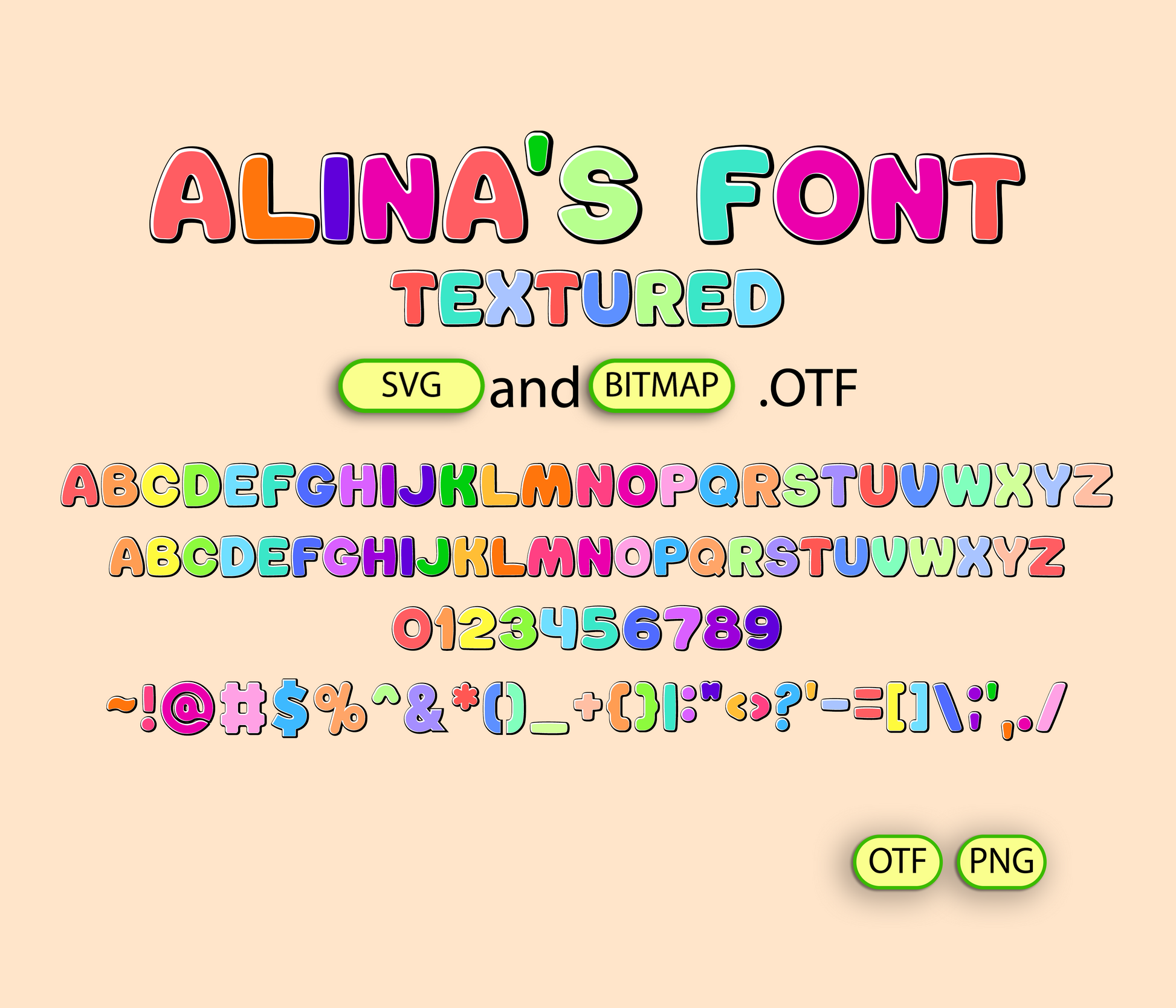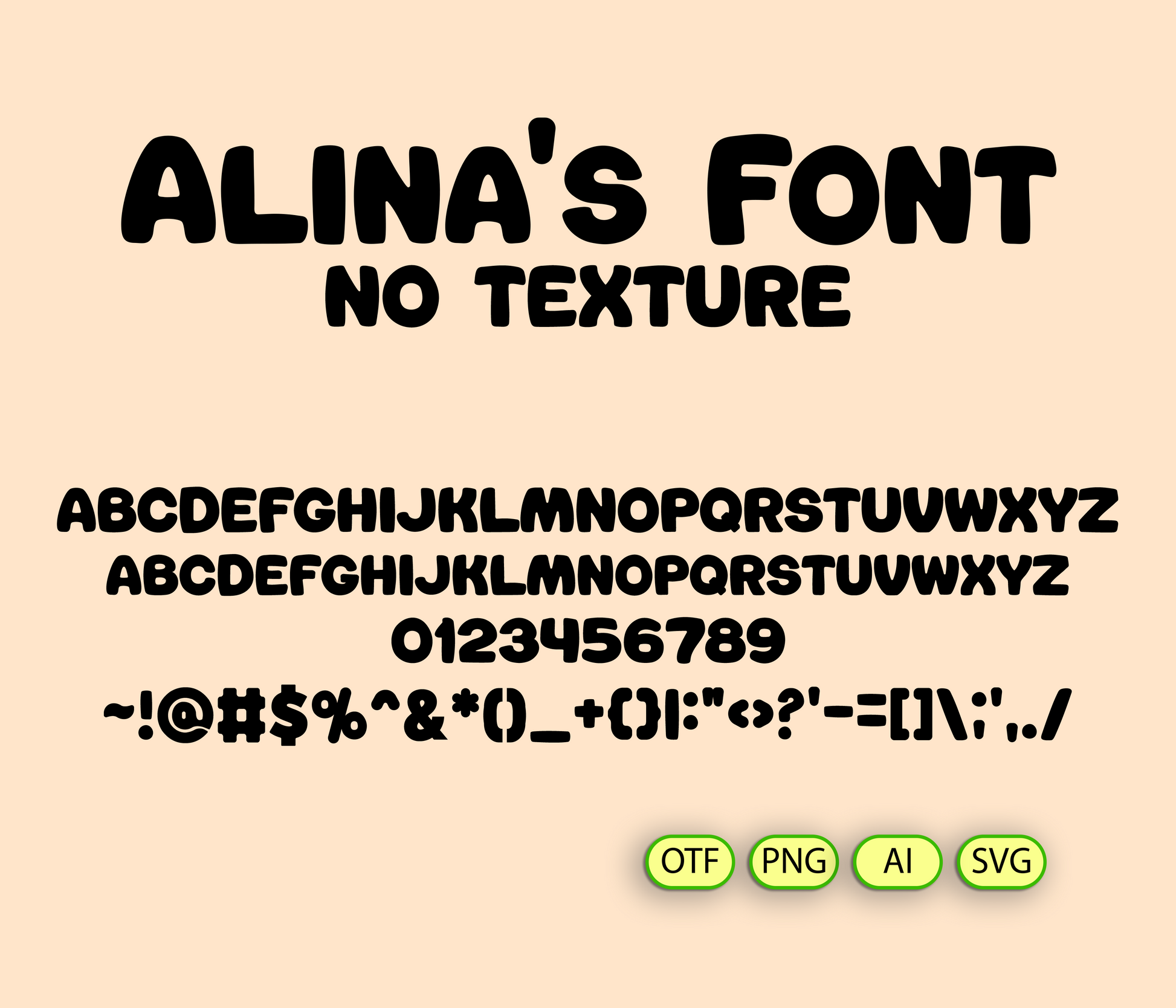
Rainbow Spectrum Font Textured
Step into the vibrant world of color with our Rainbow Spectrum font, capturing the essence of playful hues and joyful expression. Perfect for celebration planners, event designers, children's content creators, and creative professionals, this font brings the lively, energetic spirit of the full color spectrum to your projects. Create eye-catching invitations, festive merchandise, or digital content with the bright, cheerful energy of a complete rainbow palette.
Our Rainbow Spectrum font features bright, bold characters and color-infused letterforms reflecting the complete range of rainbow hues in perfect harmony. Ideal for:
- Celebration Materials: Create attention-grabbing invites, posters, and banners for birthdays, pride events, and colorful themed parties
- Children's Design: Perfect for educational materials, storybooks, and playful accessories that capture young imaginations
- Digital Media: Enhance websites, blogs, and social media with vibrant headers and graphics that express creativity and joy
- Festival Content: Add authentic character to event materials, signage, and promotional materials for color runs and musical festivals
- Personal Projects: Bring rainbow magic to scrapbooking, DIY crafts, and home decor inspired by the complete color spectrum
Our font pays tribute to the joyful expression of color in all its glory, empowering your designs with its vibrant and energetic spirit. Whether crafting celebration materials, designing colorful merchandise, or adding a cheerful touch to personal projects, this font communicates the full spectrum of creative expression. Ready to inject rainbow brilliance into your creations? This font is your key to colorful, impactful design.